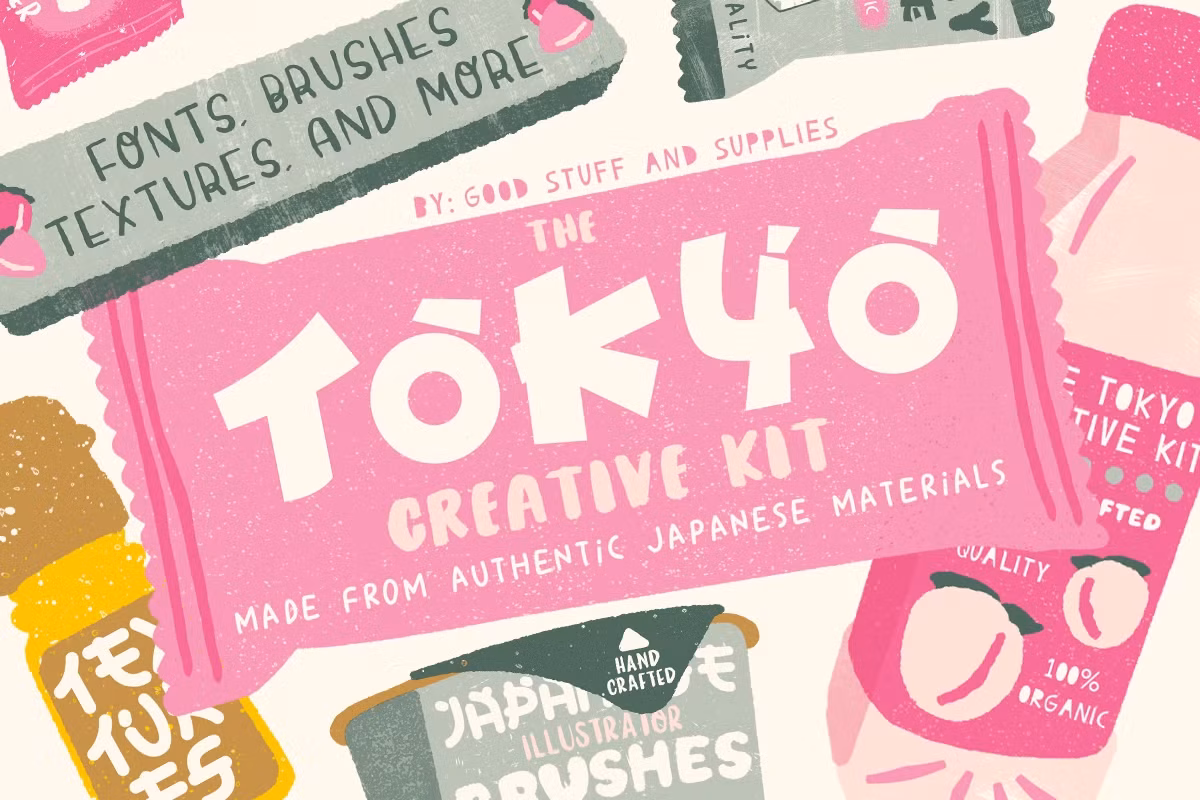
The Tokyo Creative Kit Free Download
The Tokyo Creative Kit Font Free Download is a bold and modern typeface bundle inspired by Tokyo’s vibrant street culture, sleek design, and futuristic aesthetic. Please note, you are required to purchase this font for commercial use. It is available for free download for testing and personal projects only.
Combining clean lines with edgy style, The Tokyo Creative Kit is perfect for branding, fashion editorials, posters, album art, streetwear, tech startups, and digital content that demands attention. This kit often includes not only a striking font but also creative design elements or extras to supercharge your visual identity.